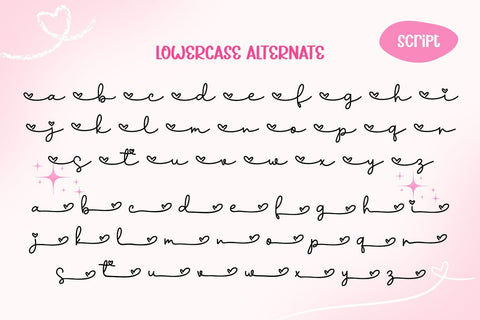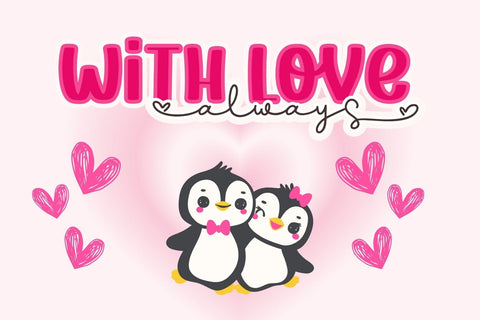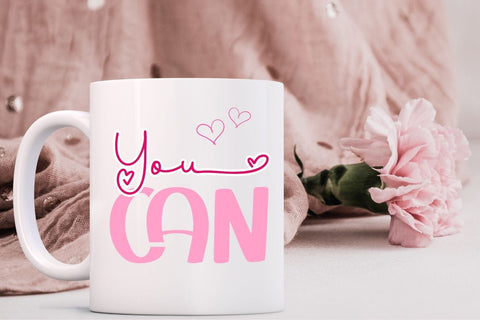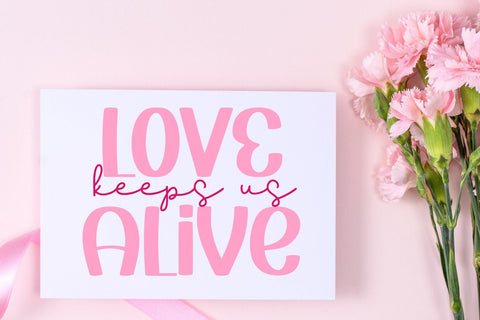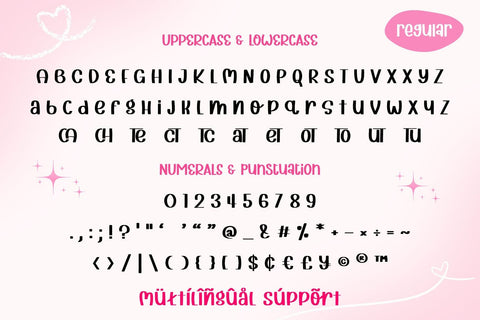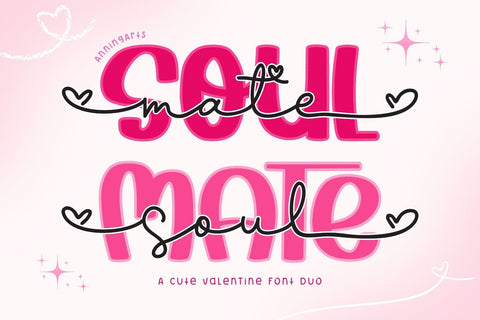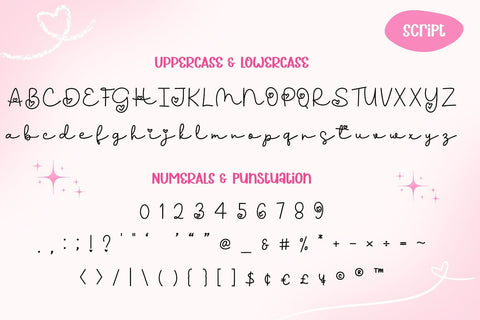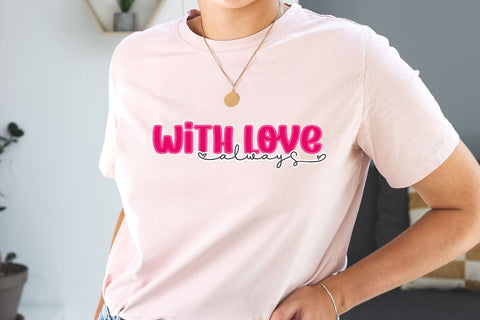
Soulmate - Font Duo
Soulmate Font Duo—the perfect font pairing for all things love and romance! This duo combines a bold, eye-catching font with a delicate handwritten script, beautifully intertwined with heart accents to create a romantic and playful vibe. It is ideal for Valentine’s Day cards, wedding invitations, posters, or any project that celebrates love and affection.